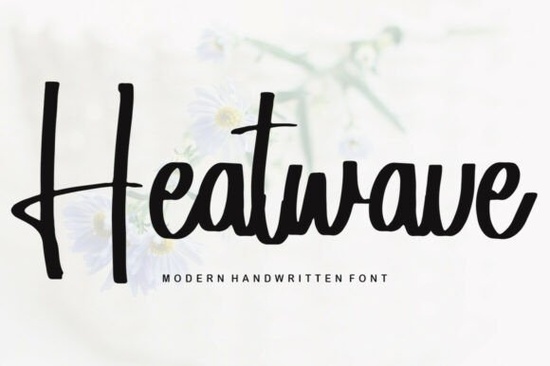
Choosing the right typography can make or break a design project, especially when you want to convey warmth and personality. The Heatwave Font is a sweet and cursive handwritten typeface that fits perfectly into this niche. It offers a gentle touch that works well for various creative ideas, from wedding invitations to branding materials. If you are looking for something that feels joyful and romantic without being too formal, this script style is worth exploring.
Many designers and crafters struggle to find a font that balances elegance with a casual vibe. You want something fancy enough for a logo but relaxed enough for a greeting card. This is where script fonts in the {category} category shine. They provide that human touch that rigid sans-serifs often lack. When you browse through options, keep an eye on legibility and character variety, as these factors determine how versatile the font will be for your specific needs.
What Makes This Typeface Suitable for Branding?
Branding requires consistency and personality. A handwritten style can help small businesses stand out by feeling more approachable. When used in a logo, a flowing script suggests creativity and care. It works particularly well for boutiques, bakeries, or lifestyle blogs where the owner wants to connect personally with their audience. The gentle curves of this font add a romantic touch that can make marketing promotions feel less like ads and more like invitations.
However, pairing is essential. You wouldn't want to use a cursive font for every line of text. It is best used for headlines or accent words. For body text, consider pairing it with a clean sans-serif. If you are exploring other options for your brand kit, you might find a friendly typeface that complements the main logo. Having a secondary font ensures readability while maintaining the overall aesthetic.
Where Can You Use This Font Effectively?
The versatility of this style extends beyond just digital screens. It is perfectly fit for physical products too. Think about wedding things like save-the-dates, menus, or vow books. The elegant yet casual nature makes it suitable for fashion lookbooks as well. If you are a print-on-demand seller, this font can add value to t-shirts, mugs, and tote bags. Customers often look for designs that feel unique and handcrafted.
Greeting cards are another excellent use case. Whether it is for birthdays, anniversaries, or holidays, the joyful touch of this script enhances the message. You might also consider how it looks on packaging. A fancy label on a homemade jam jar or a candle can elevate the perceived value of the product. If you need something slightly different for seasonal projects, checking out a cozy script option could give you more variety in your design library.
How Does It Compare to Other Script Styles?
Not all handwritten fonts are created equal. Some are too messy, while others are too rigid. This specific style strikes a balance. It has enough flow to look natural but enough structure to remain readable. When comparing it to other choices, look at the kerning and ligatures. Good ligatures connect letters smoothly, preventing awkward gaps.
For those who prefer a thinner look, a slimmer design might be more appropriate for minimalist projects. On the other hand, if you need something with more weight, you might explore bolder options. It is also helpful to look at classic alternatives. For instance, a classic alternative might offer more traditional swashes. Understanding these differences helps you choose the right tool for each job.
Of course, the main attraction here is the this specific style we are discussing. It holds its own against competitors by offering a modern take on traditional calligraphy. It doesn't feel outdated, which is crucial for contemporary marketing.
Quick Tips for Using Script Fonts
- Check Legibility: Always test your text at different sizes to ensure it remains readable.
- Limit Usage: Use script fonts for headlines or short phrases, not long paragraphs.
- Pair Wisely: Combine with simple sans-serif fonts for body text to create contrast.
- Test on Mockups: See how the font looks on actual products like mugs or shirts before finalizing.